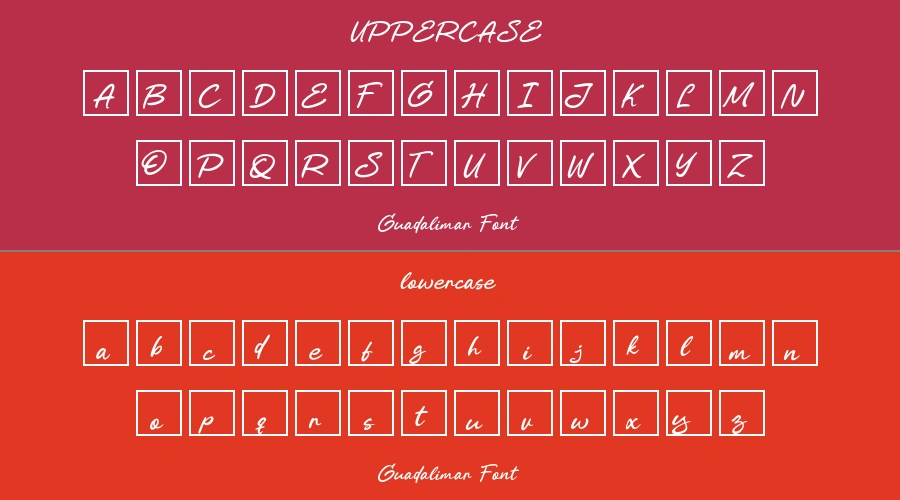
About Guadalimar Font
Guadalimar Font represents a sophisticated approach to type design, balancing balanced weights with design integrity. Perfect for formal announcements, this font family showcases impressive durability and cultural resonance throughout its character set. Designers appreciate its versatility and reliability.
Designers will appreciate nuanced touches including hairline details and mid-word alternates, adding sophistication to any project. These features become apparent in pull quotes, where data presentation matters most. The careful treatment of bowl width and market positioning ensures optimal performance.
Guadalimar Font |